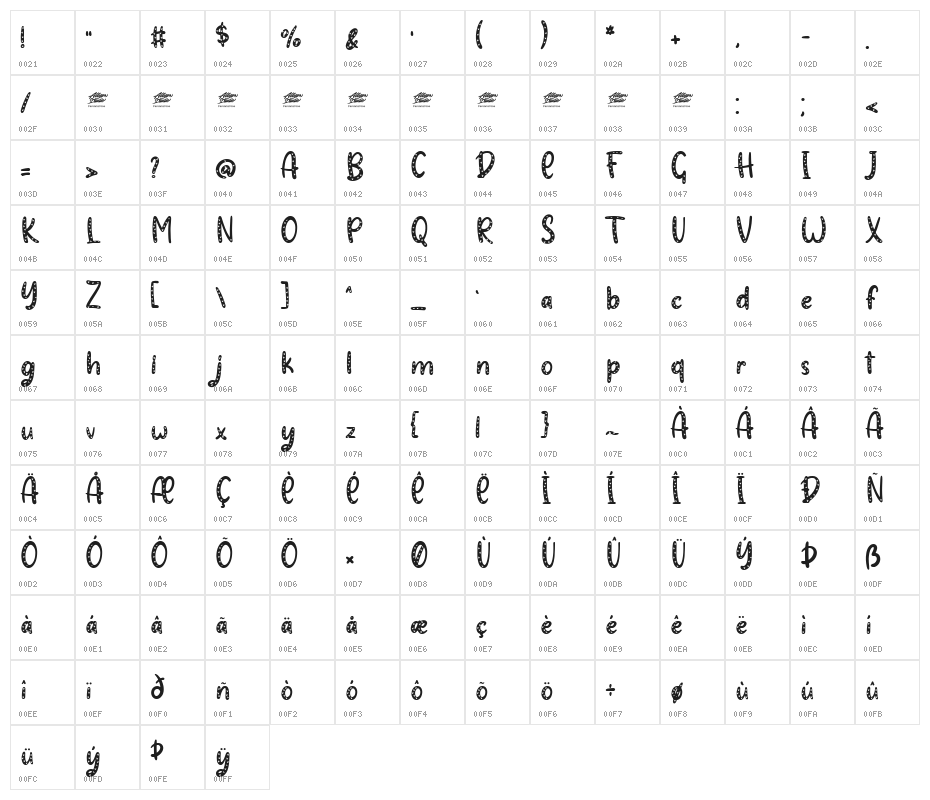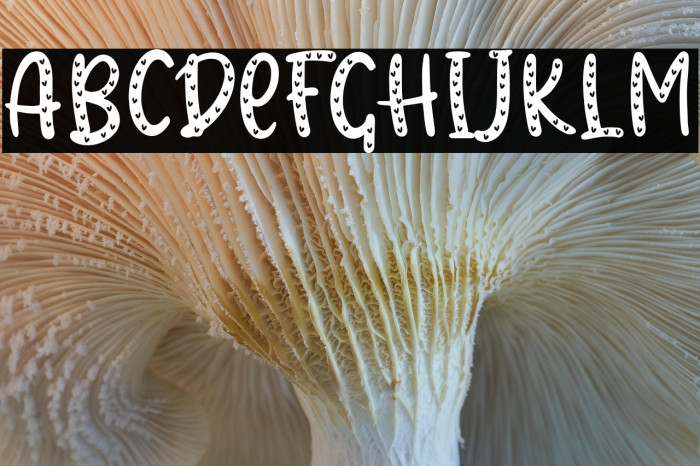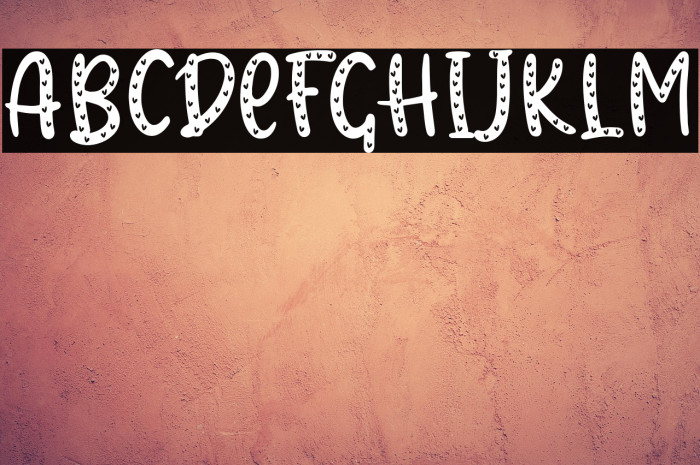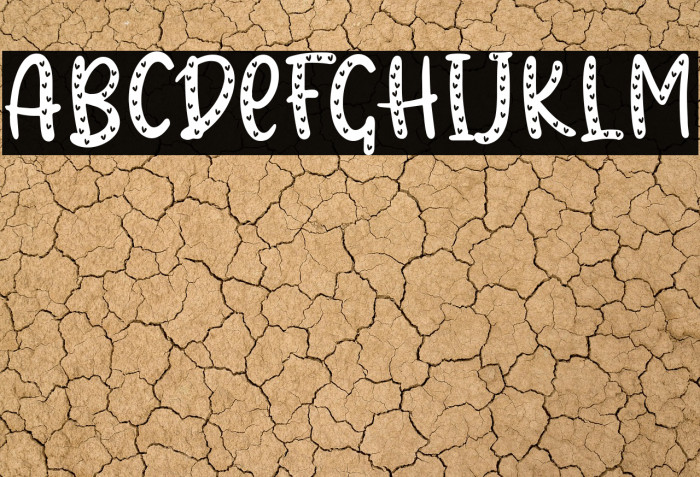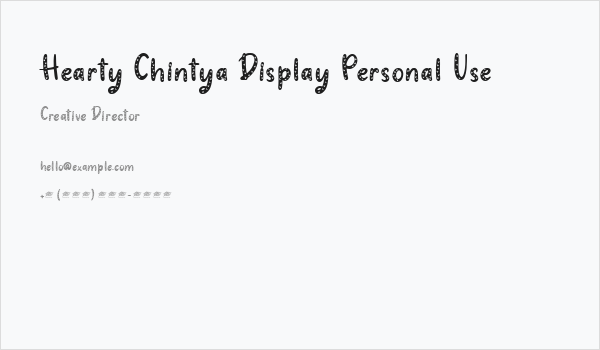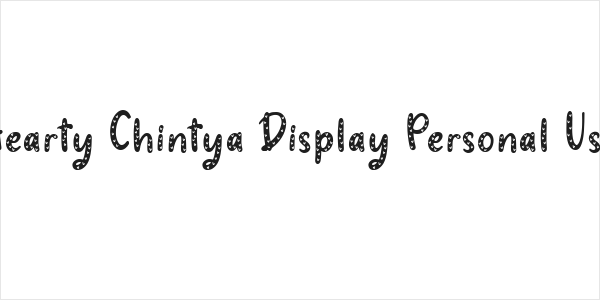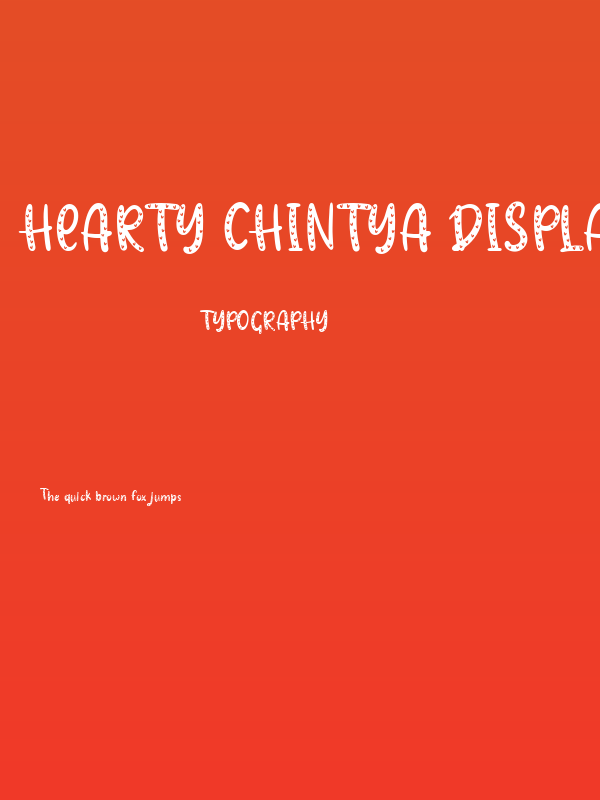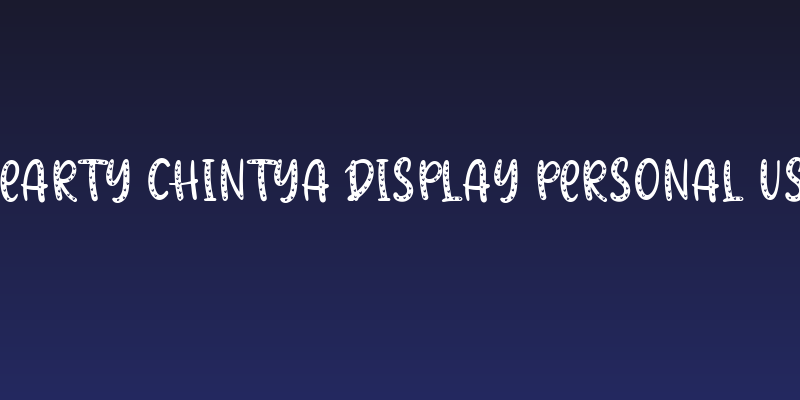
Hearty Chintya Display Personal Use Font
Hearty Chintya Display Personal Use Description
This playful and decorative font features a whimsical design with heart-shaped patterns embedded within each character. The letters are bold and rounded, giving a friendly and approachable feel. The uppercase and lowercase letters maintain a consistent style, with a slightly irregular baseline that adds to its charm. The numbers and special characters follow the same decorative theme, making it suitable for creative and fun projects. The font's unique style makes it stand out, perfect for adding a touch of personality to any design.
| Proposed Projects | Ideal for greeting cards, children's book covers, playful branding, and festive invitations. |